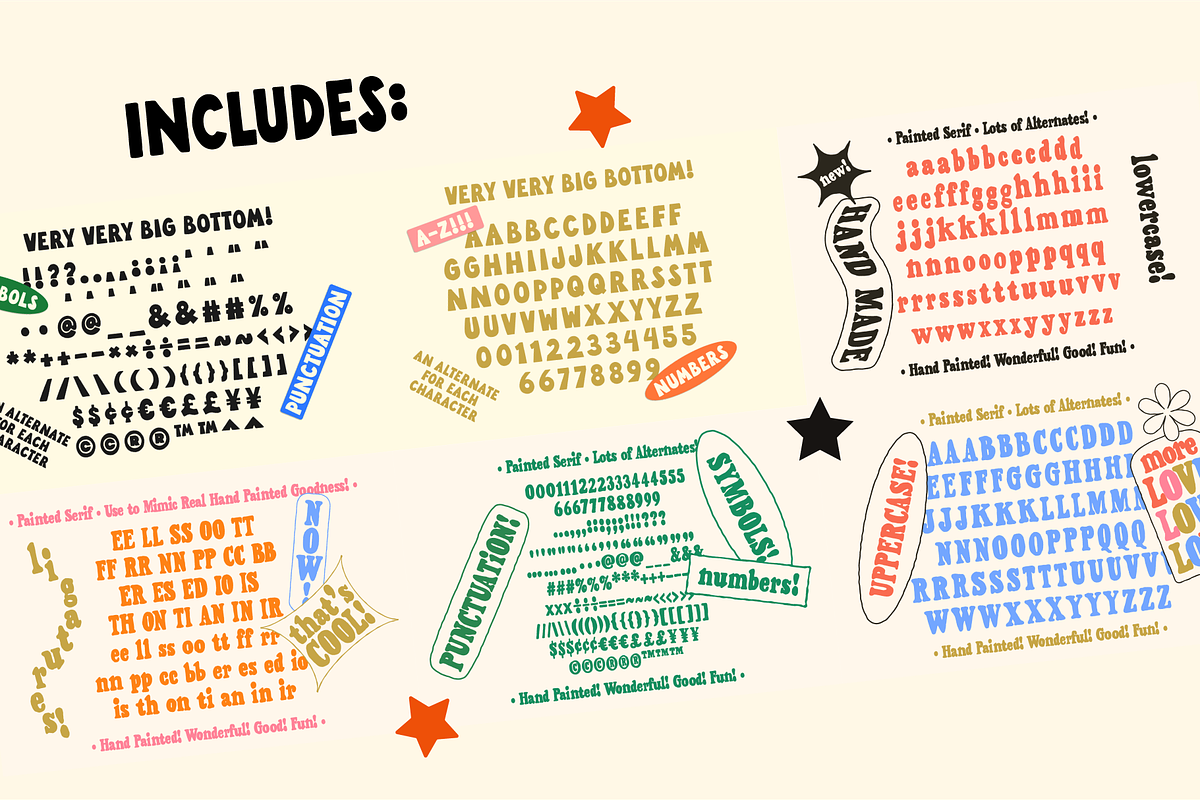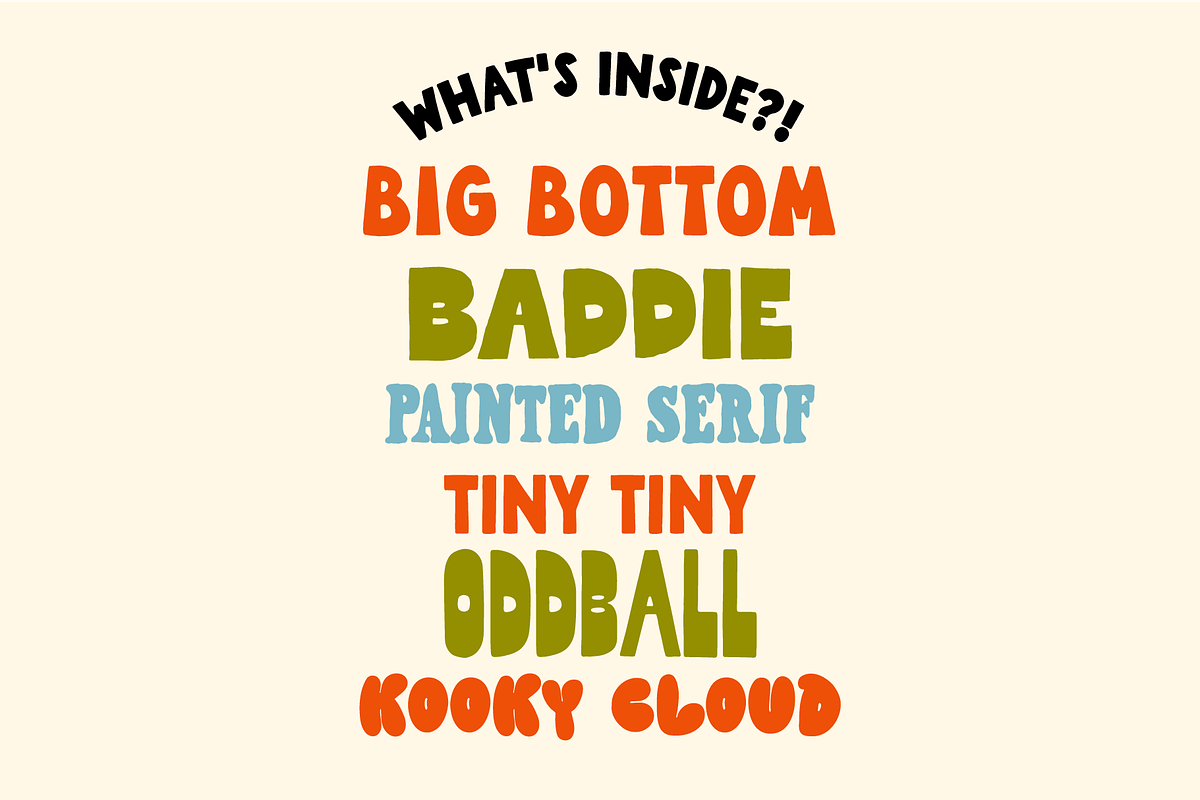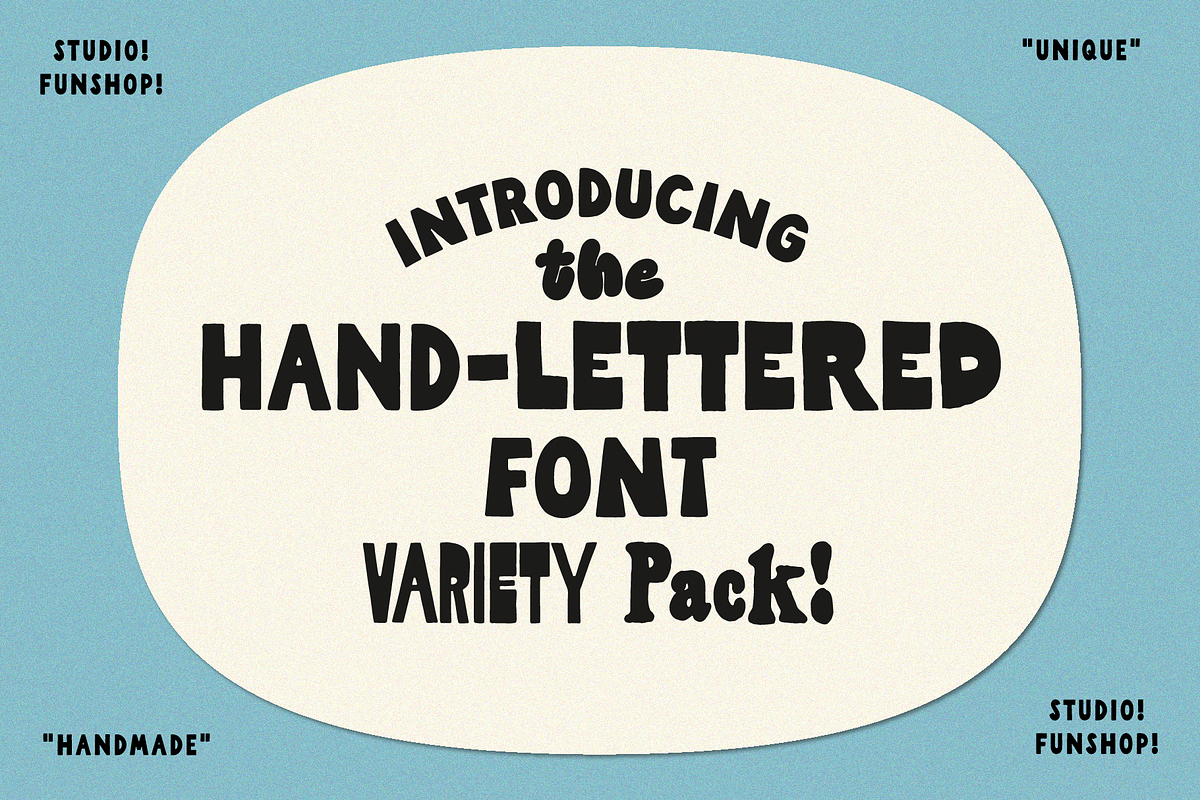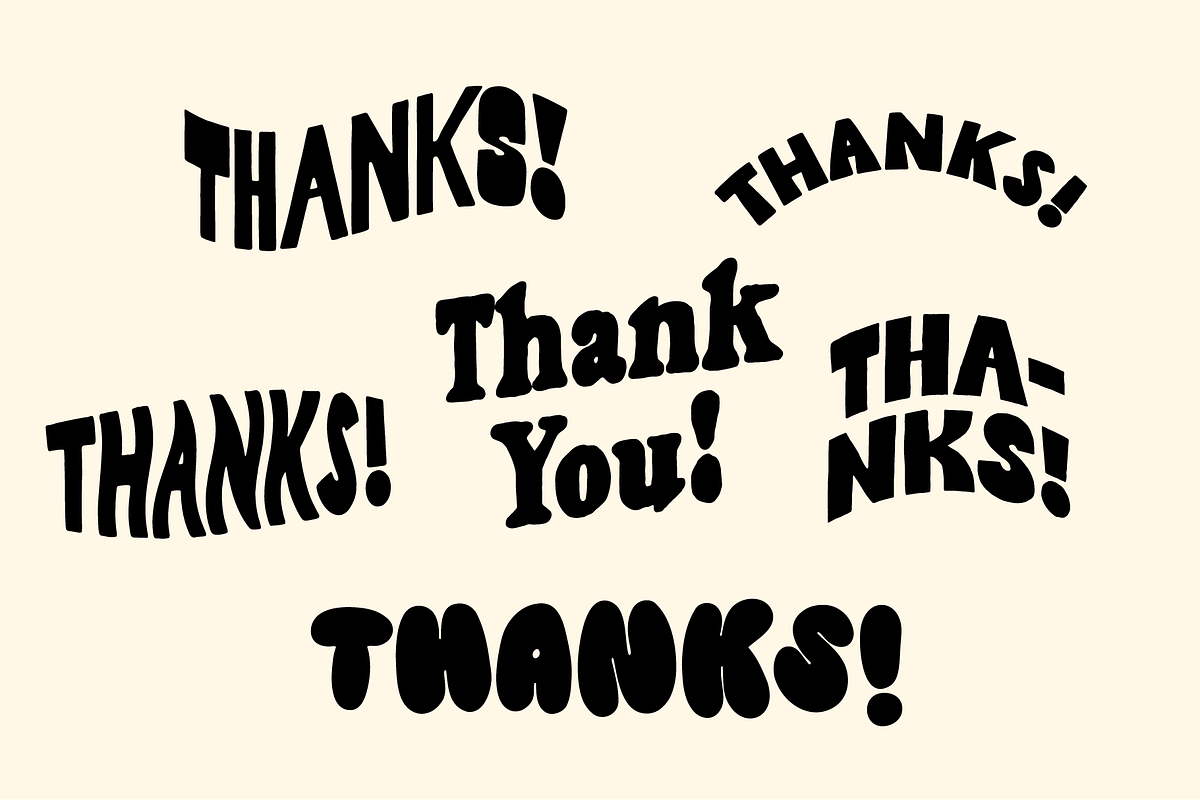
Hand-lettering Kit! Unique! Fonts!
Hand-lettering Kit! Unique Handmade Fonts! Whoa! It's a diverse collection of hand-lettered fonts to create unique hand-lettered inspired designs! Each font is hand drawn by me and has lots of yummy handmade imperfections. Please play with these to your heart's content. Mixing and matching are recommended. :)
Also great for logos, quotes, art, signs, titles, and more! Enjoy!
What's in the kit? A mix of font styles like serif, bubble, retro, modern, reverse contrast, san serif, bold, tall, and condensed. (see slides!)